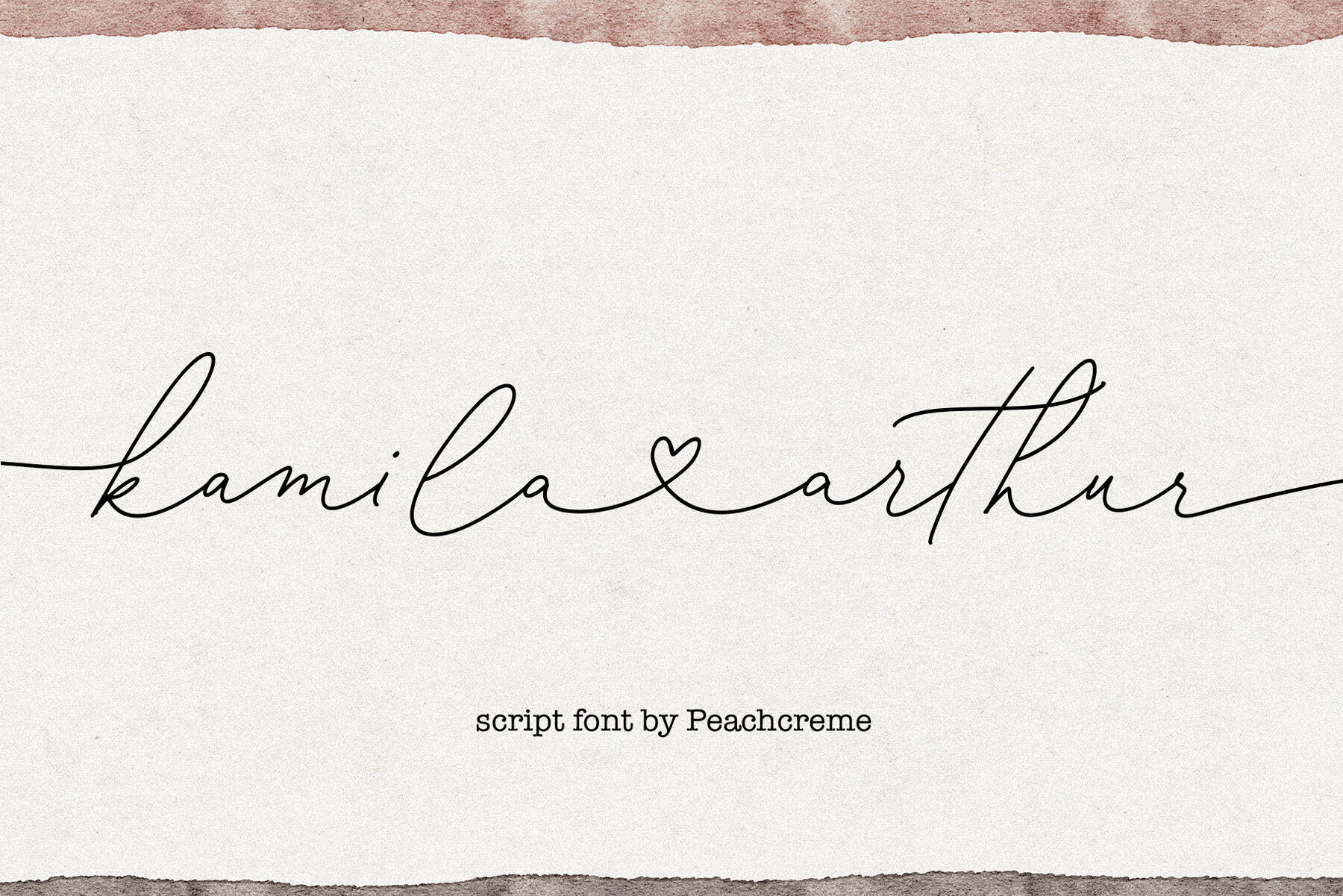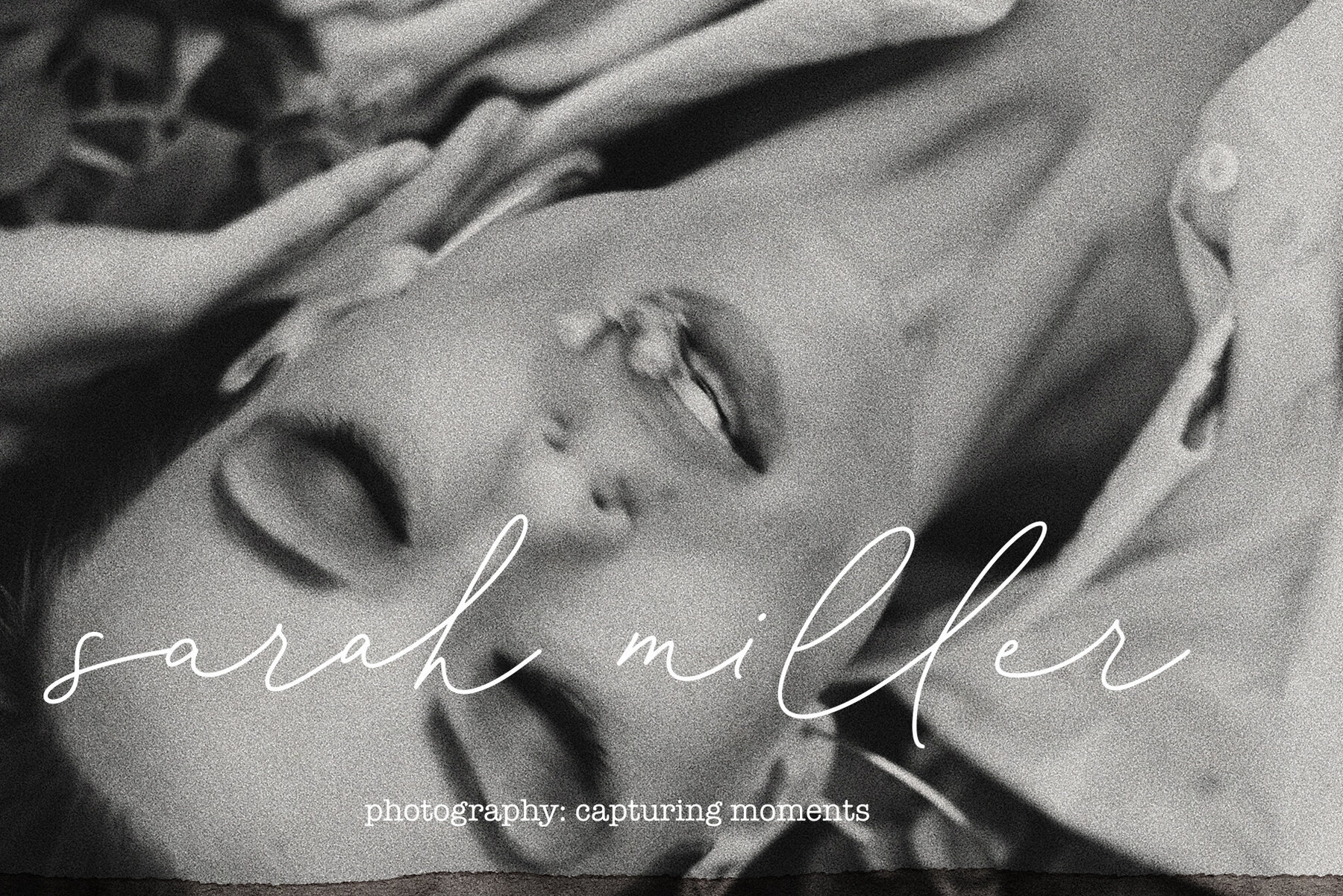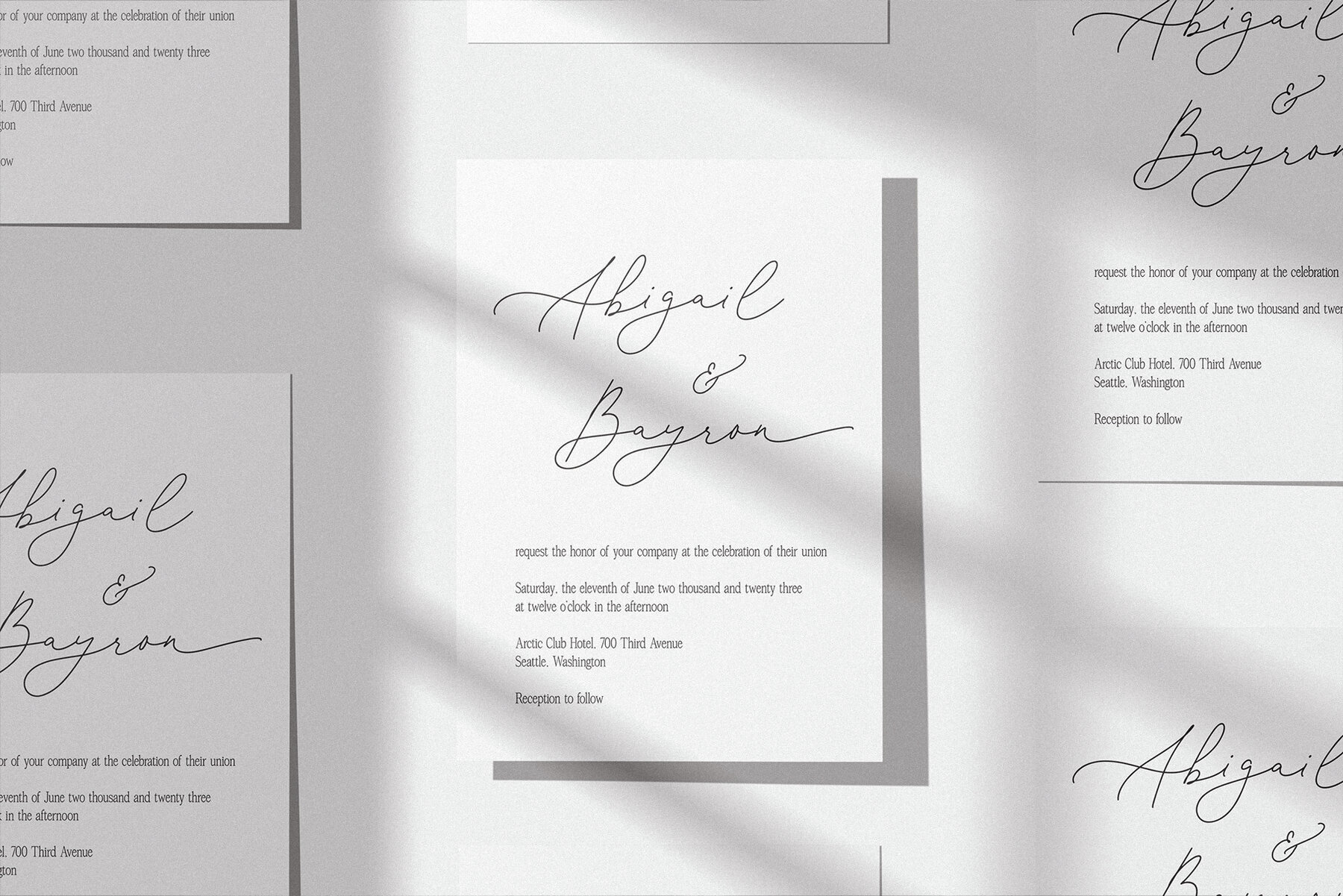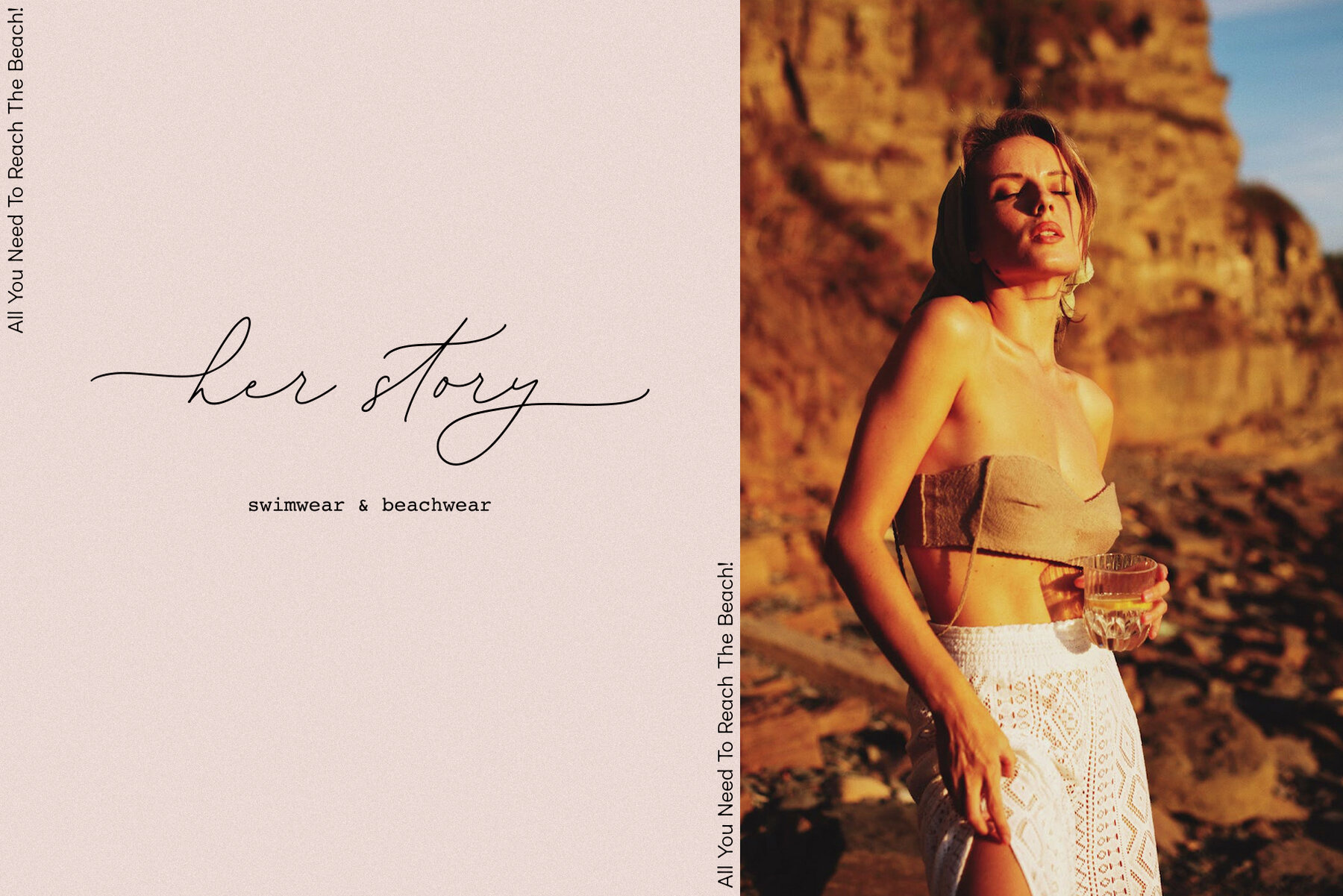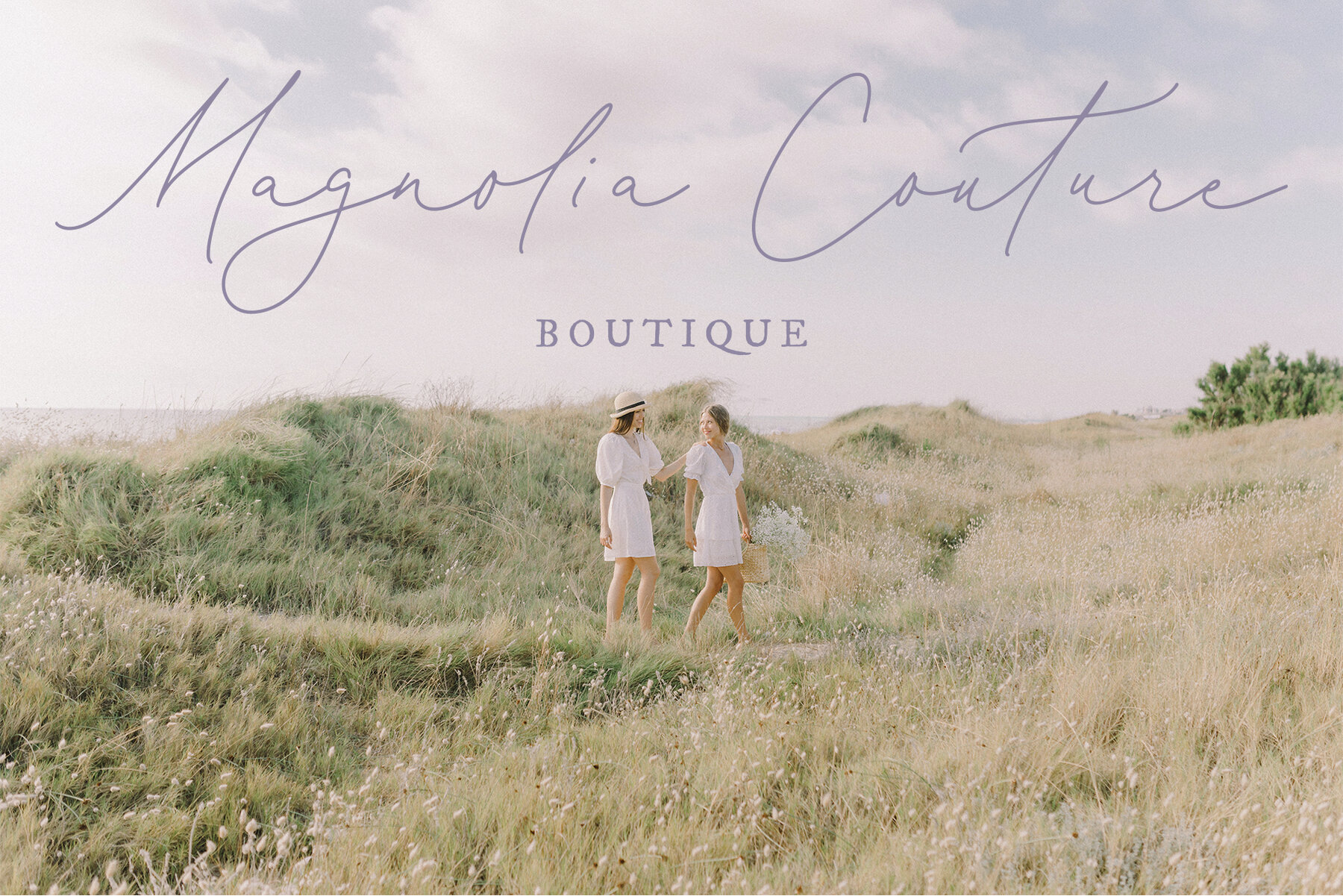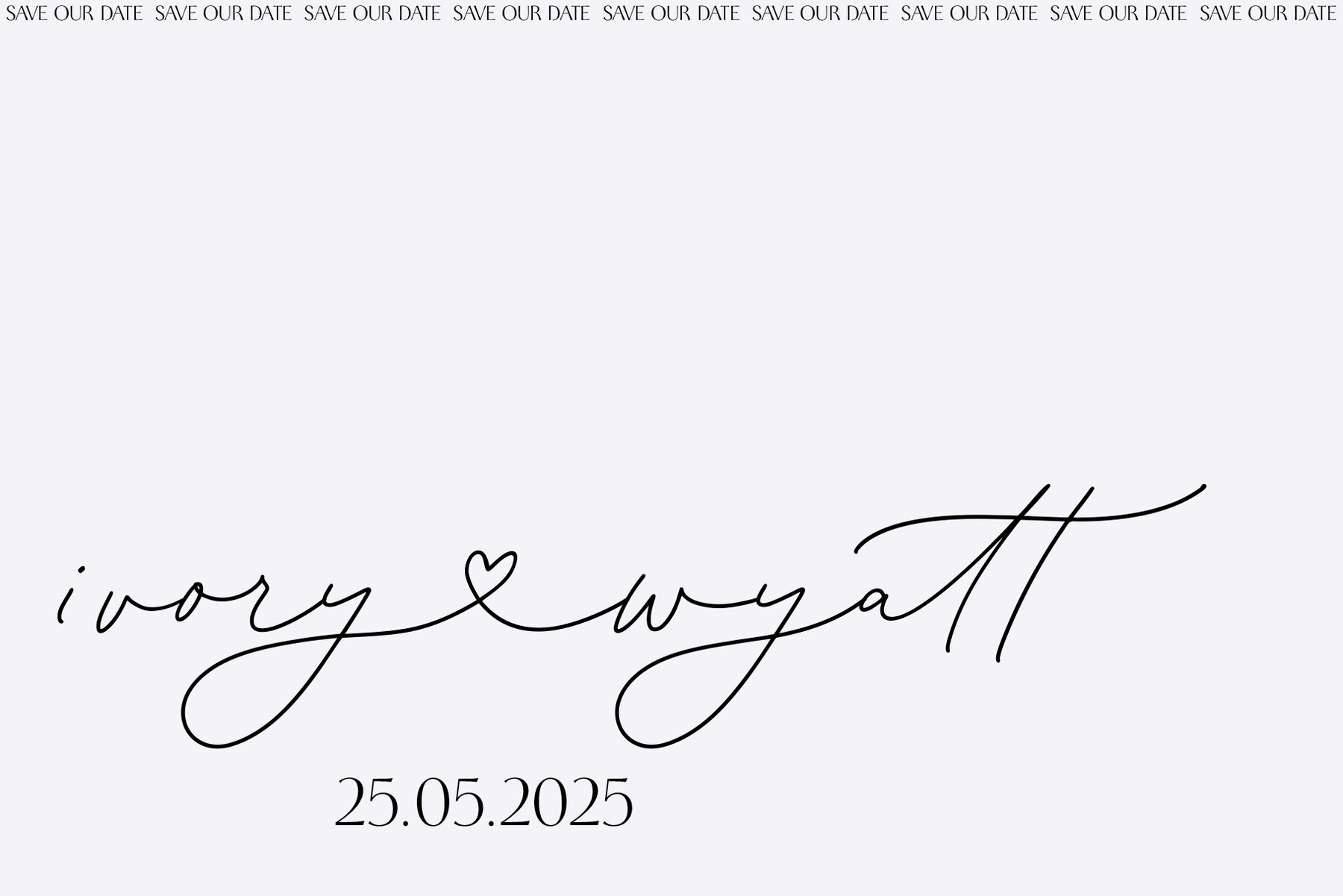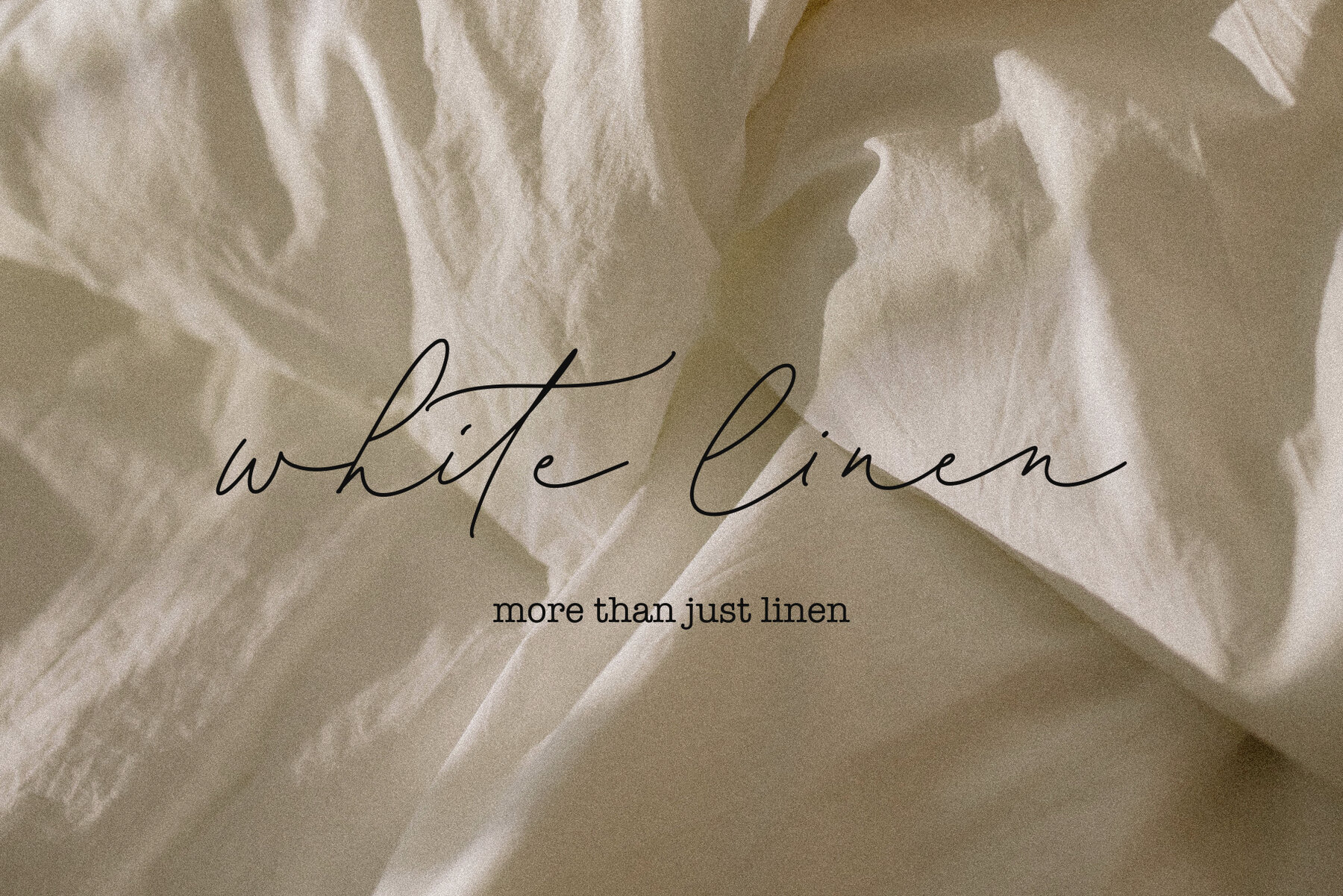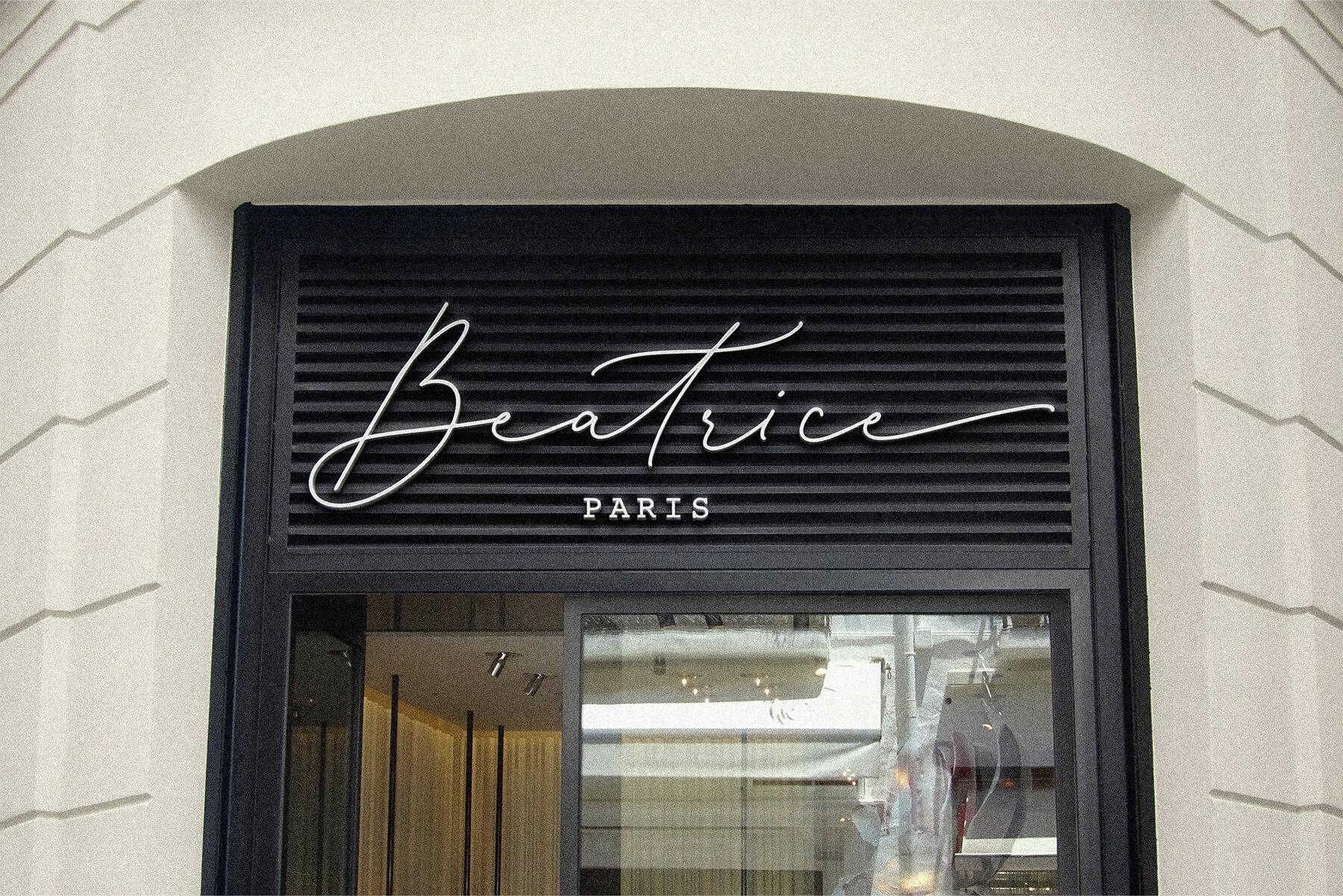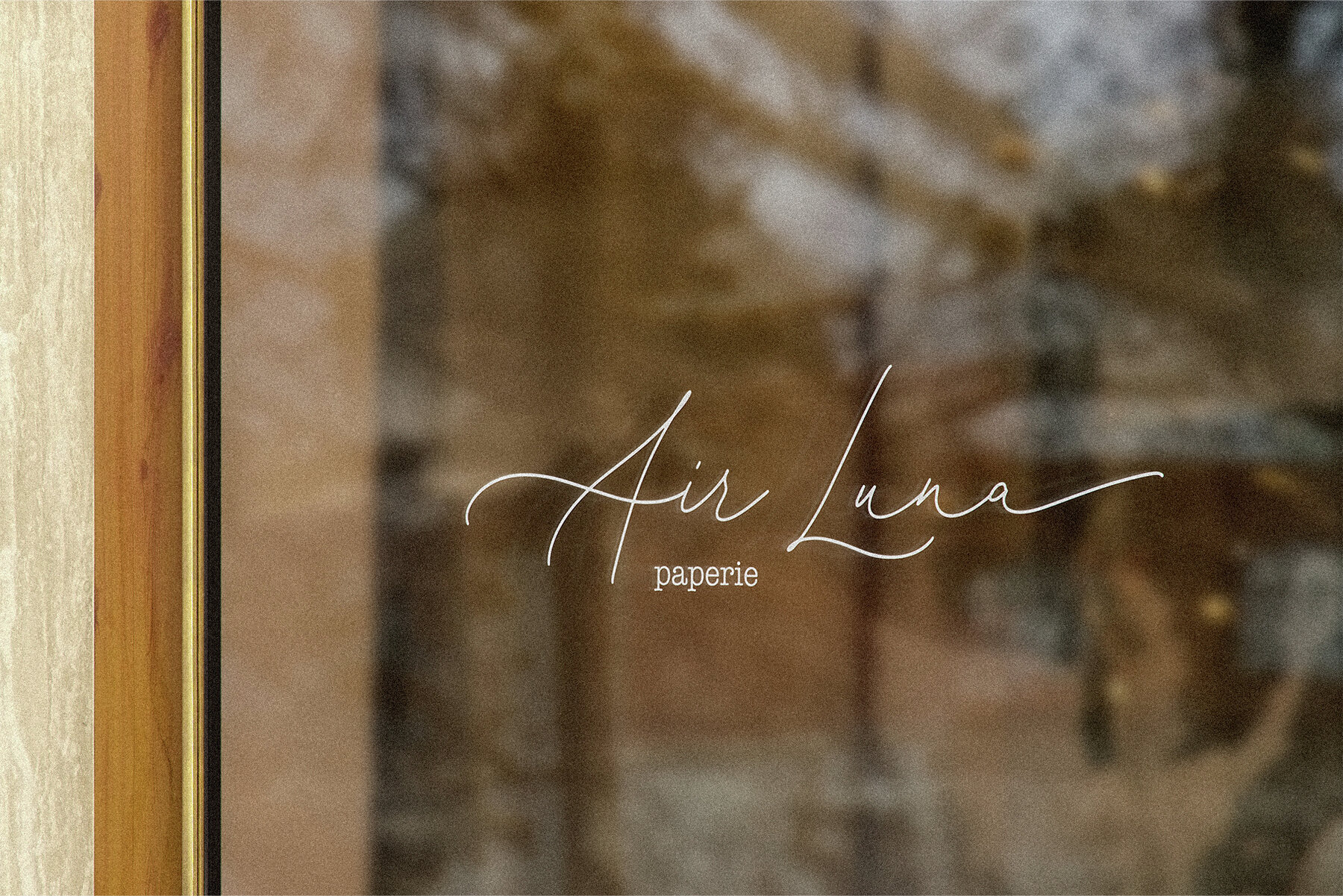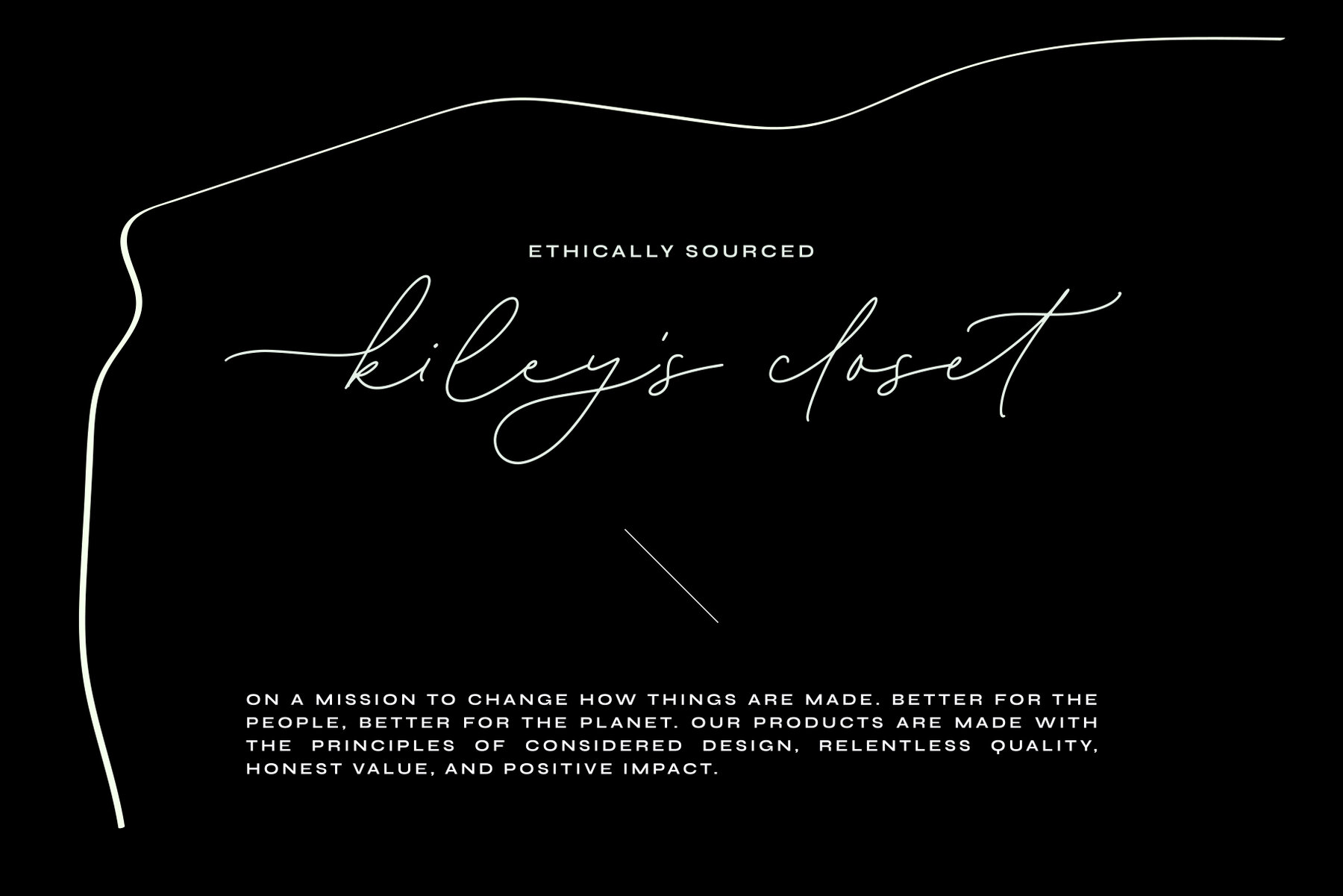
Kamila Arthur Font
Kamila Arthur
"Kamila Arthur" is a beautifully crafted script font that draws inspiration from clean, natural handwriting. It features an elegant monoline flow, complete with charming beginning, ending, and connecting lowercase heart swashes. This makes it an excellent choice for minimalist wedding designs, adding a touch of romantic sophistication to your projects. The heart glyphs are designed to seamlessly connect only lowercase letters, ensuring a cohesive and delicate appearance.
Perfect for a range of creative designs, "Kamila Arthur" brings a unique touch to invitations, greeting cards, and branding materials. Its simple yet stylish look allows for versatile use while maintaining a sense of elegance and refinement. Whether you're designing for personal occasions or professional projects, this script font is sure to leave a lasting impression.